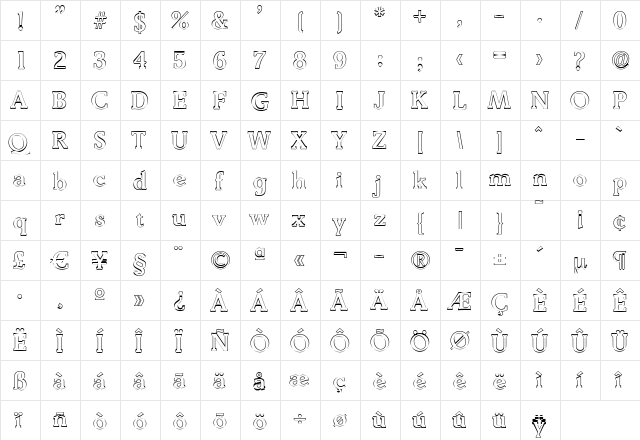
BenjaminBeckerOutline-Medium Regular
Design Context for BenjaminBeckerOutline-Medium Typeface
BenjaminBeckerOutline-Medium brings ornamental detail and strong personality to headlines and identities, where visual impact matters more than quiet functionality.
Font Pairing: Pair with a clean neutral sans-serif for body copy to let BenjaminBeckerOutline-Medium's character lead without overwhelming the composition.
Pro Tip: Treat BenjaminBeckerOutline-Medium as the centrepiece of your typographic hierarchy. One strong heading set in a decorative face can carry an entire layout.